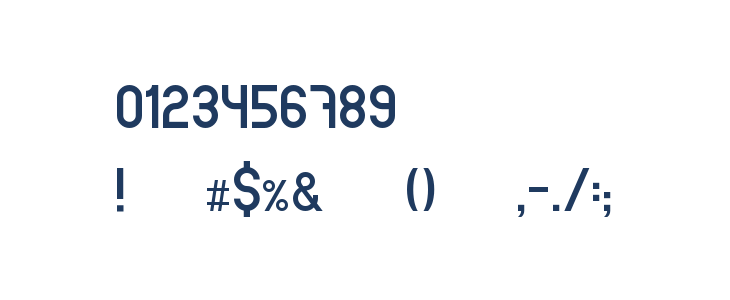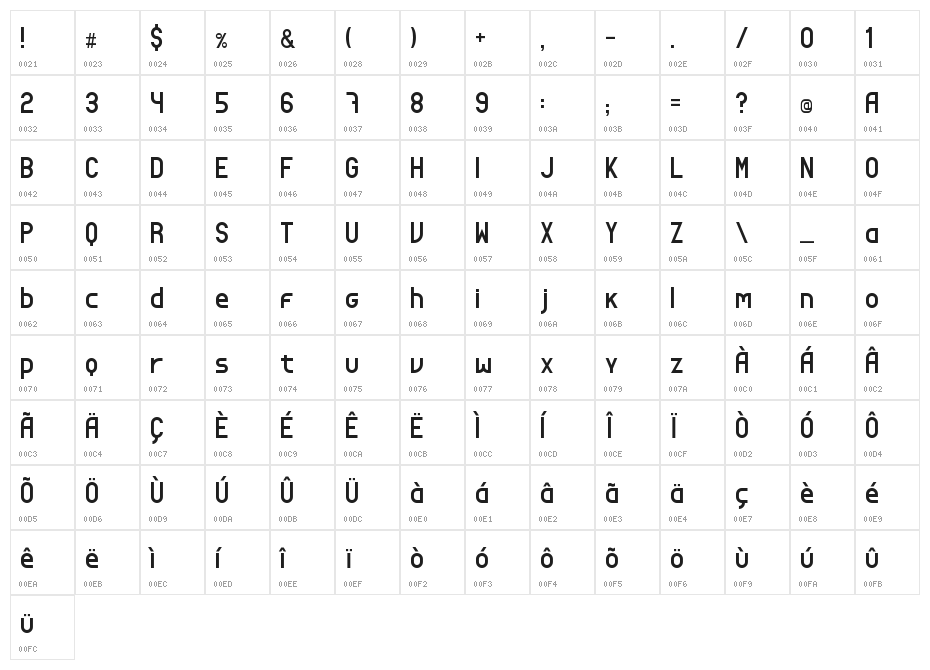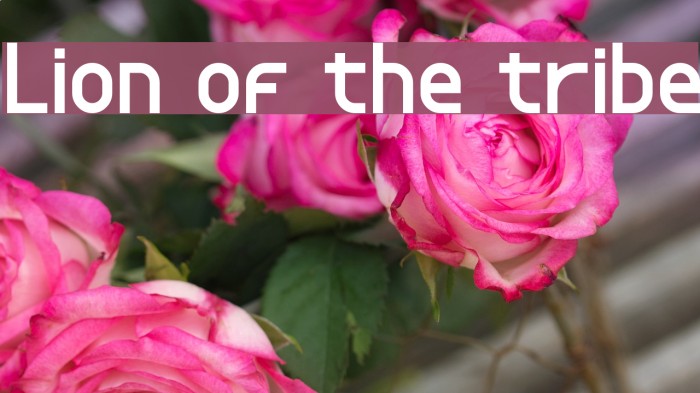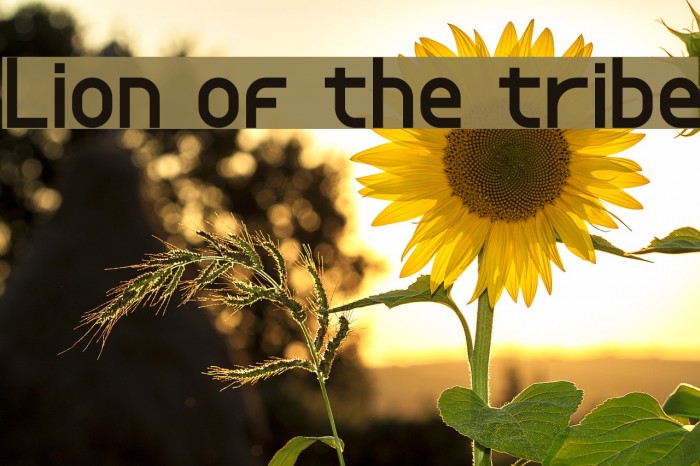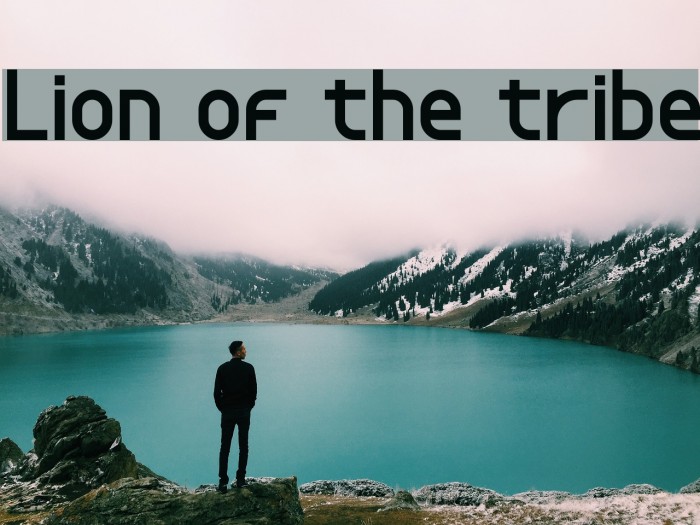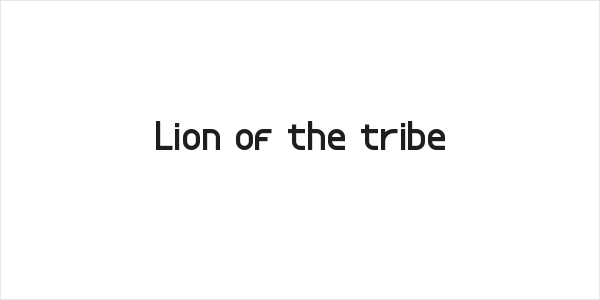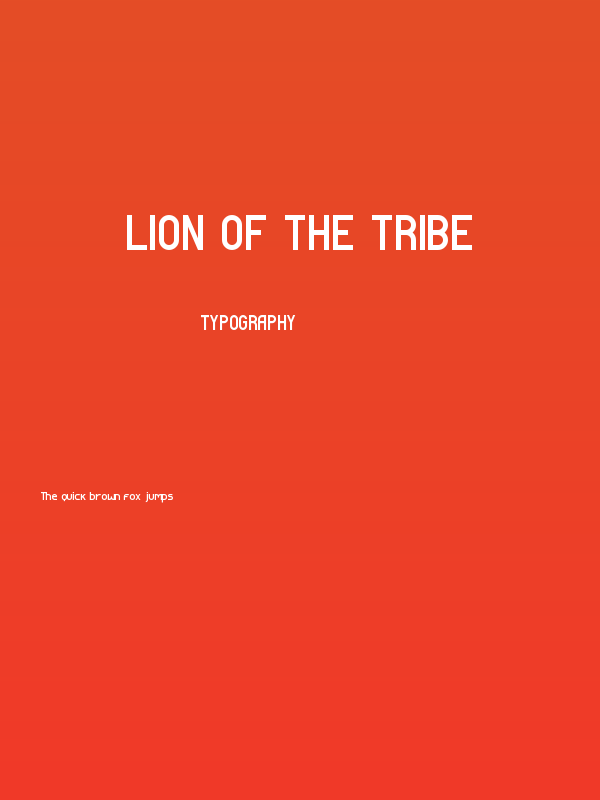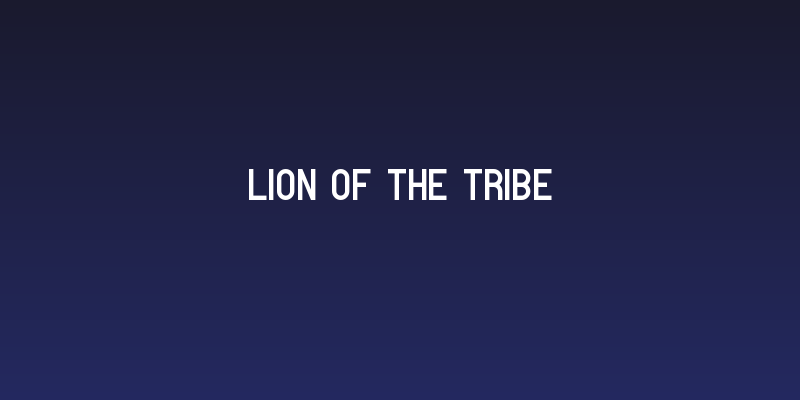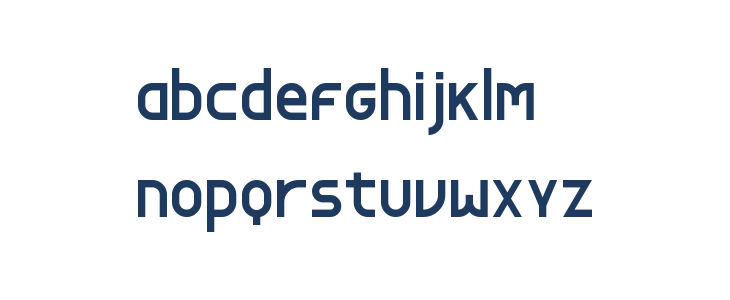
Lion of the tribe Font
Lion of the tribe Description
This font features a bold and modern design with a geometric structure that emphasizes clarity and readability. The characters are uniformly thick, providing a consistent visual weight across all letters and numbers. The uppercase letters are slightly taller than the lowercase, with a distinct angularity that adds a contemporary edge. The lowercase letters maintain a similar geometric style, with rounded edges that soften the overall look. The numerals are clear and straightforward, matching the style of the alphabet. Special characters are well-integrated, maintaining the font's cohesive appearance. This font is versatile, suitable for both digital and print media, and can be used effectively in various design contexts.
| Use Case | Headlines, Logos, Digital interfaces |
| Proposed Projects | Ideal for branding, advertising, headlines, and digital interfaces. |